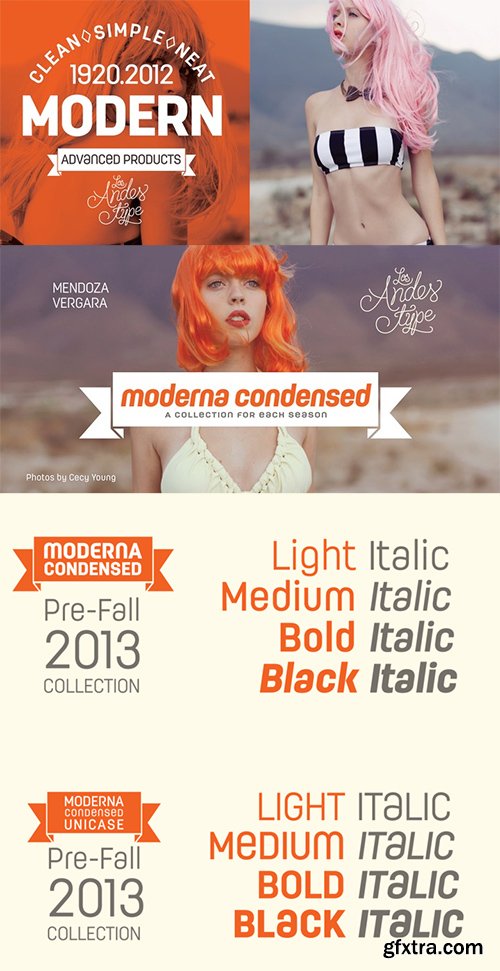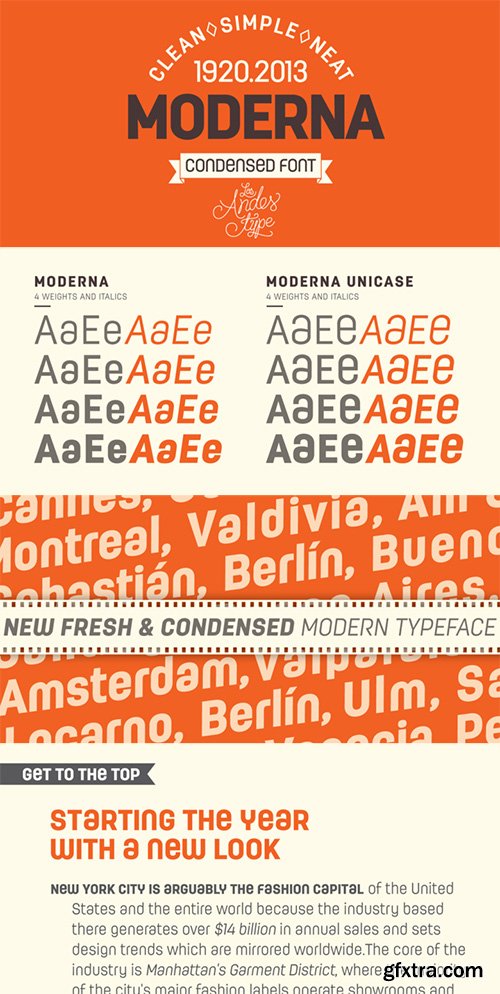
Moderna Condensed is a modern condensed Sans-serif font, simple and neutral, especially for short texts, headlines, and sub-headlines, logos, posters and branding, includes some alternate characters, arrows and labels.